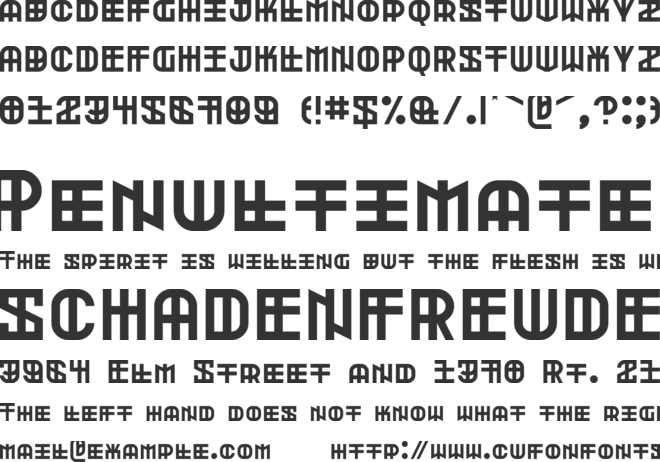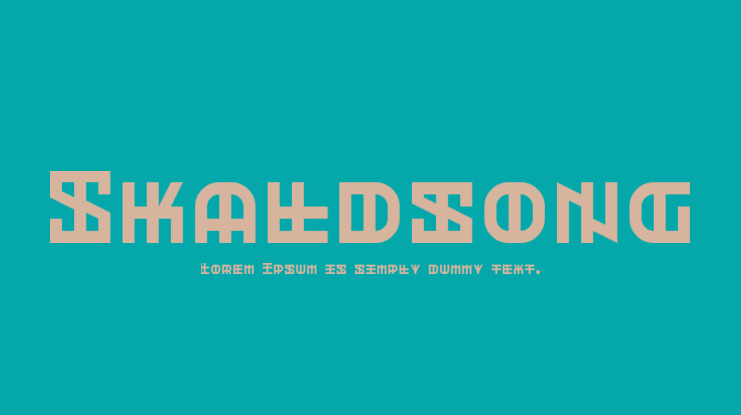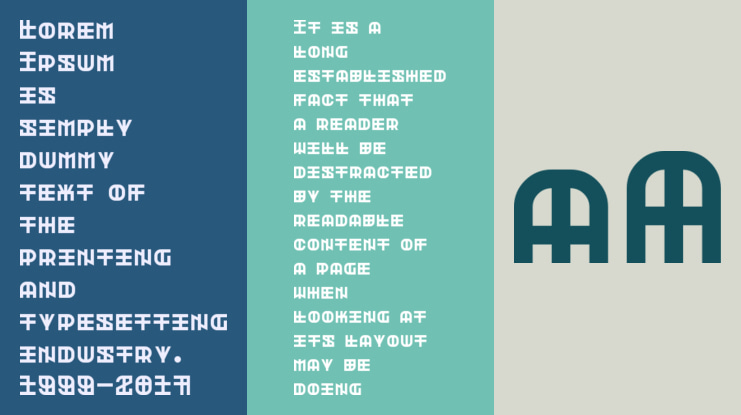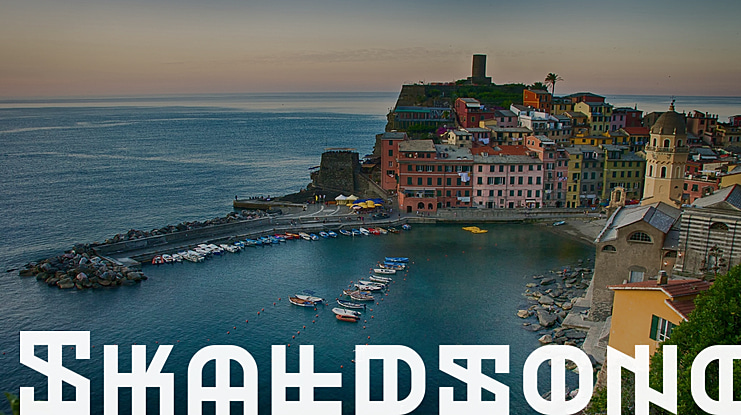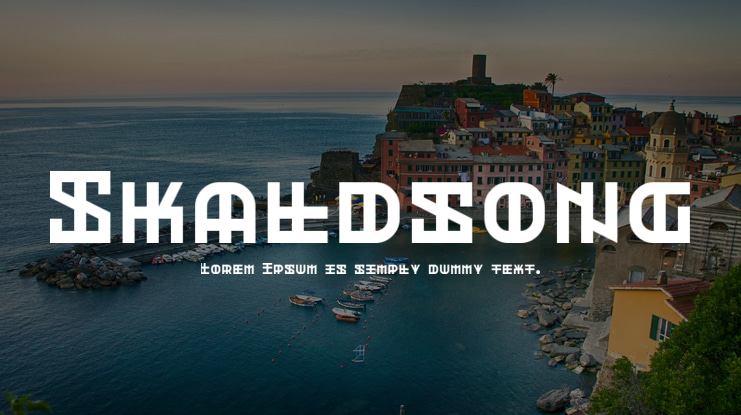
Skaldsong Font
An experimental and slightly ambiguous design which looks vaguely Runic. Works well at all font sizes.
Supports Dutch, English, and German!